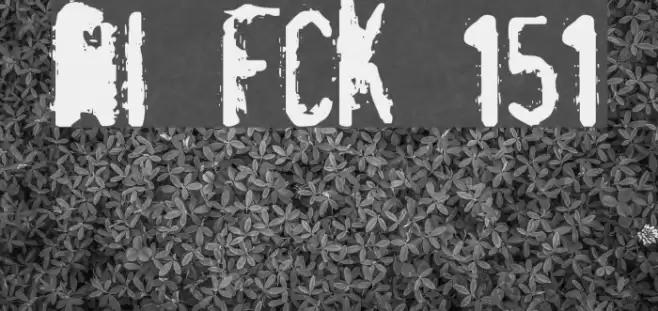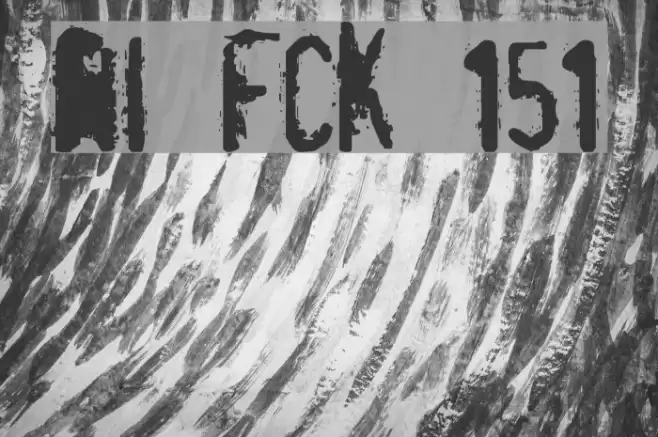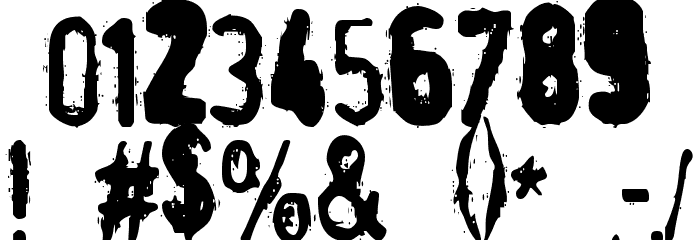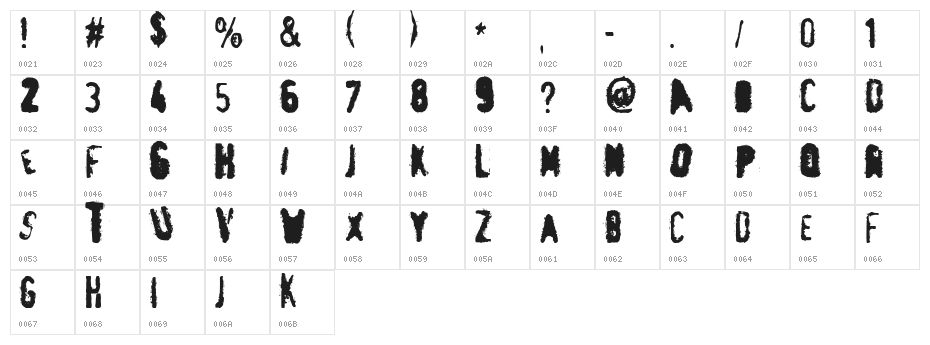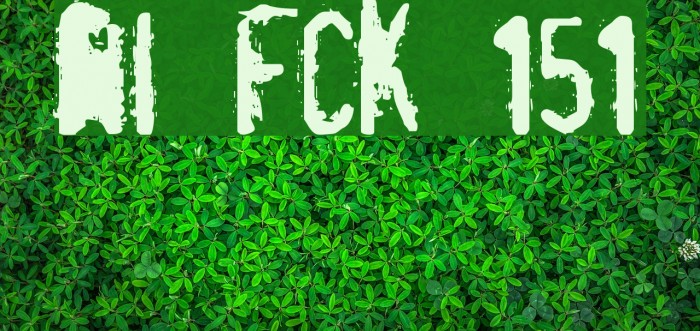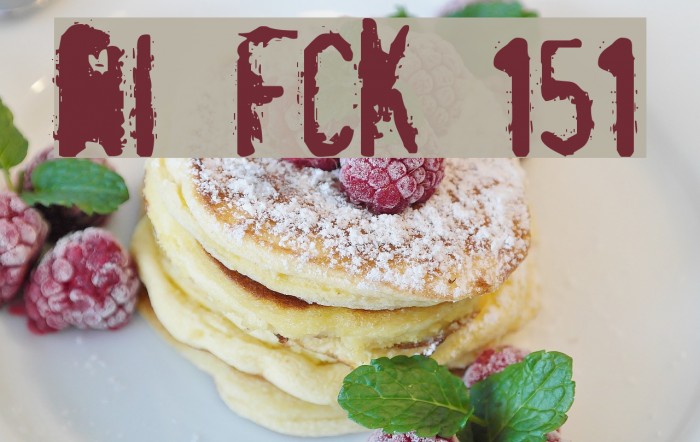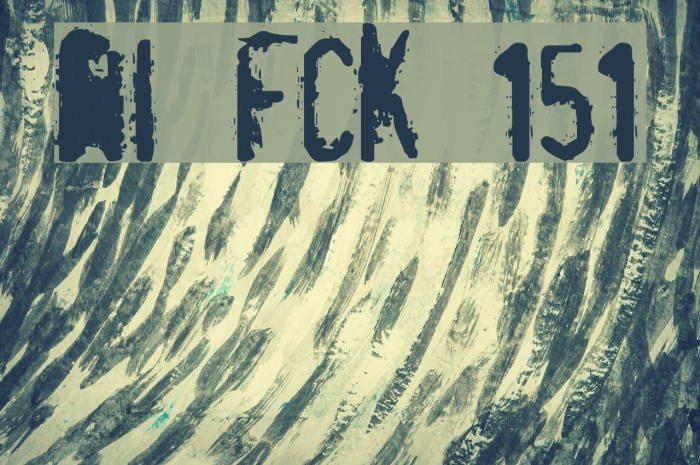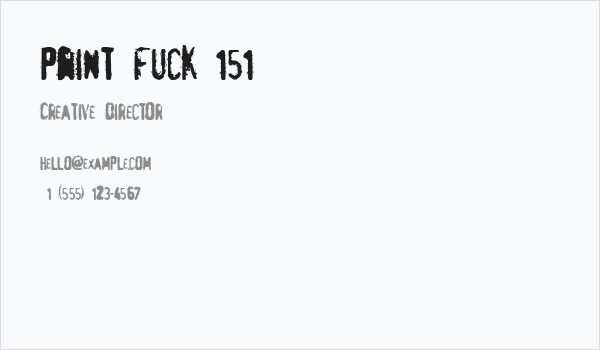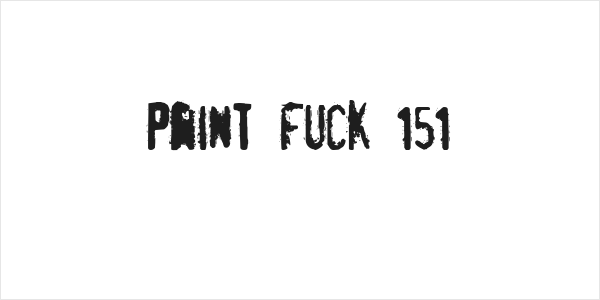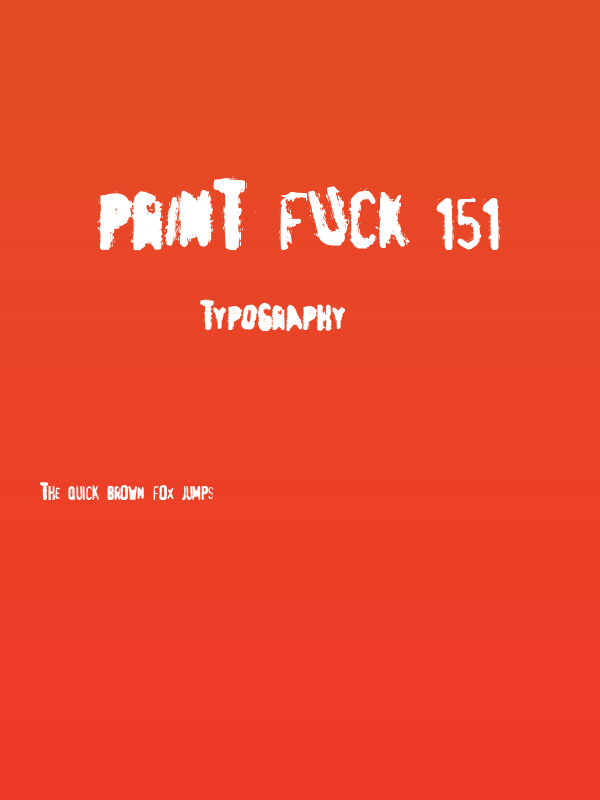
pRint Fuck 151 Font
pRint Fuck 151 Description
This font features a rugged, distressed style with a bold and impactful appearance. The characters are irregular and have a grunge texture, giving them a raw and edgy feel. The uppercase and lowercase letters maintain a consistent height, while the numbers and special characters follow the same distressed aesthetic. The font's unique style makes it stand out, ideal for projects that require a bold statement or an urban, gritty look. Its uneven edges and rough texture contribute to a sense of movement and energy.
A bold, distressed font with a rugged, grunge texture from Messy fonts.
- Proposed Projects: Ideal for album covers, posters, streetwear branding, and urban-themed designs.
- Overall Style: Grunge, Urban, Edgy